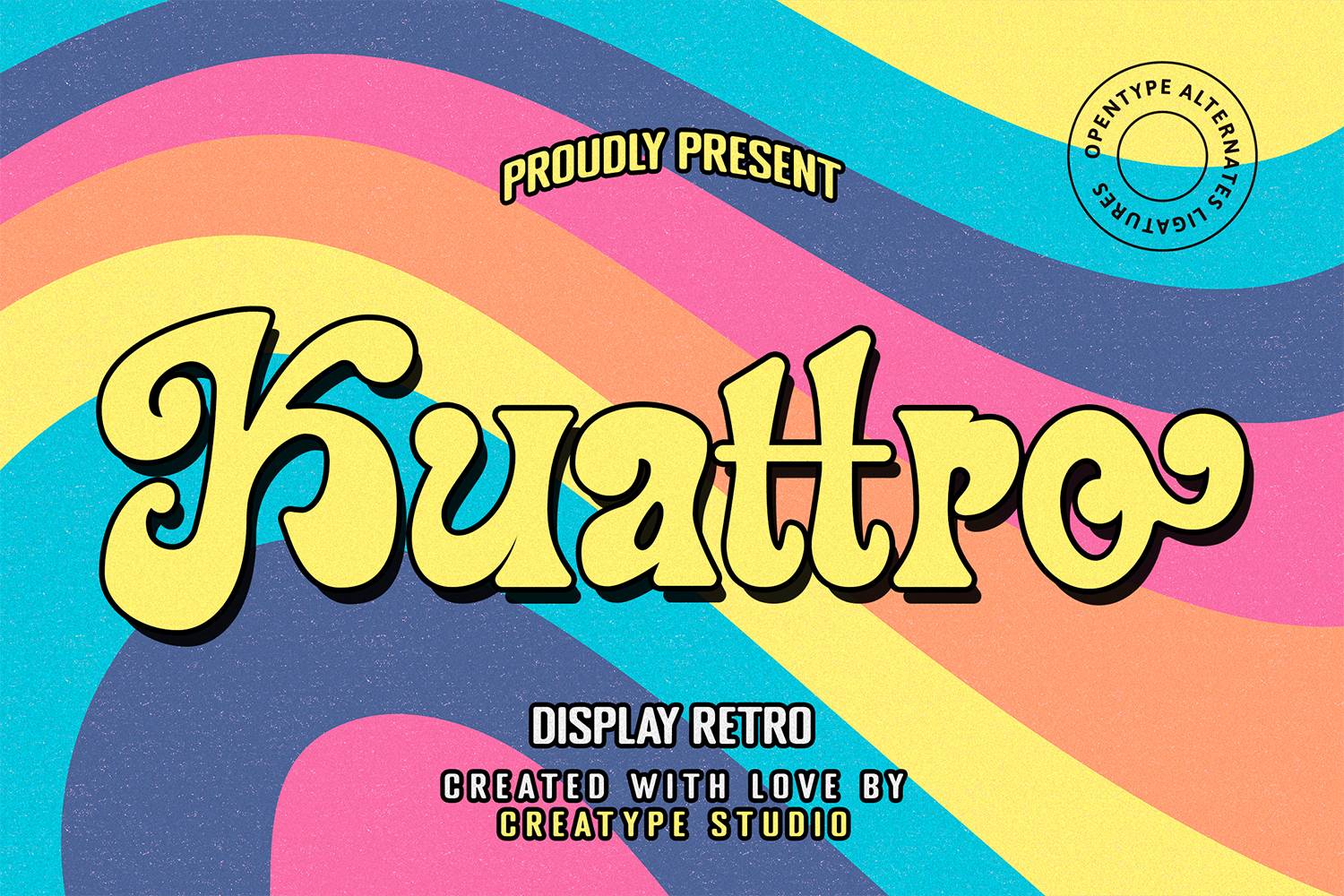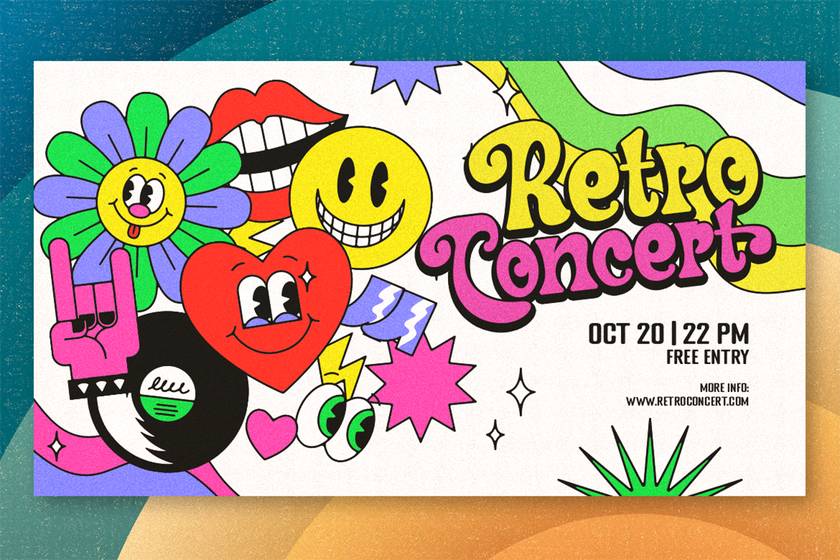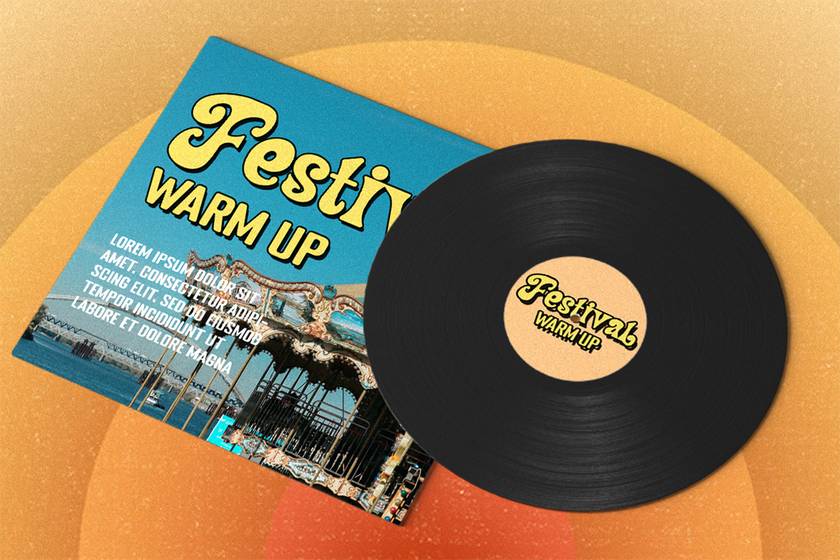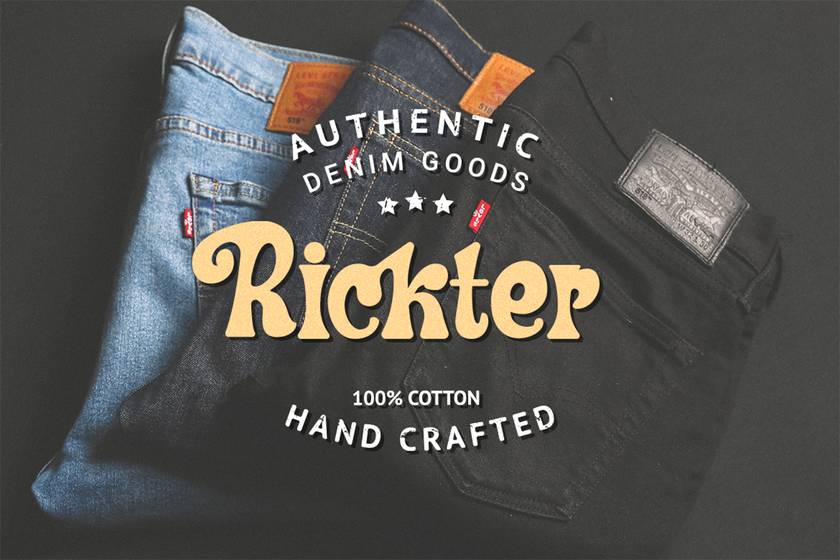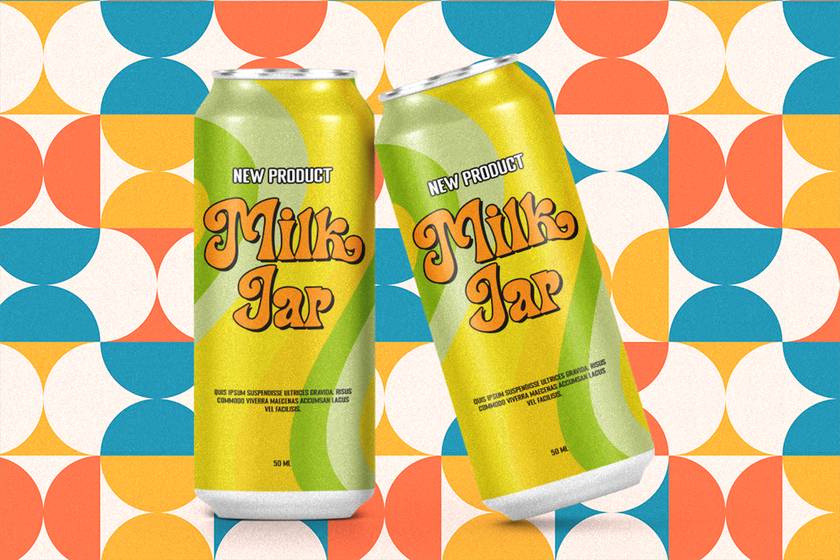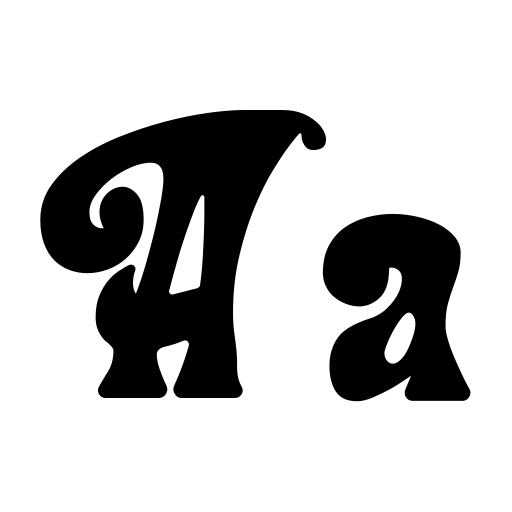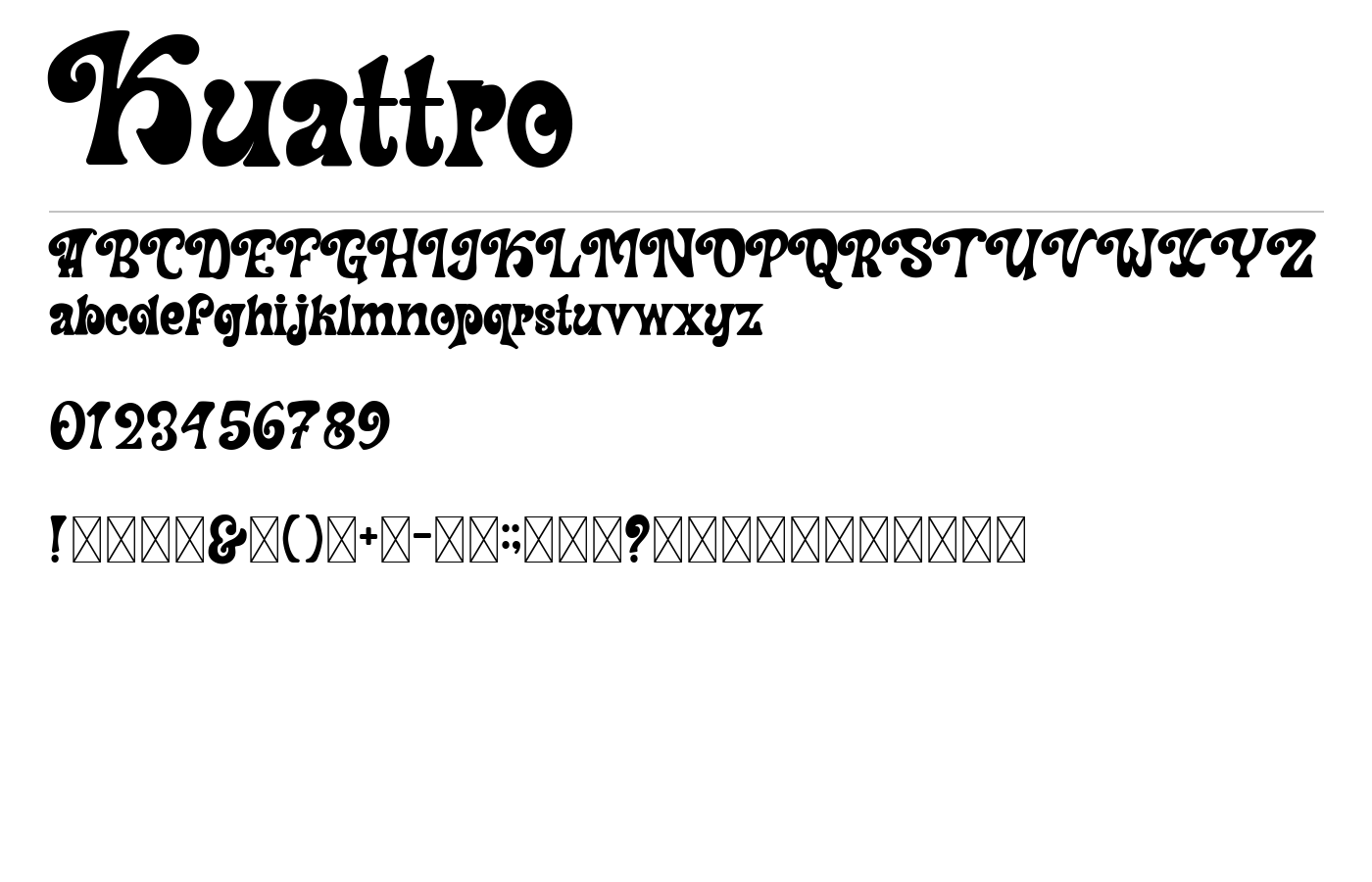
Kuattro is a bold serif font with a playful, decorative flair, featuring thick, contrasting strokes and whimsical curls that give it a lively vintage charm. Its unique letterforms, including curled terminals and pronounced serifs, make it ideal for eye-catching headlines, posters, and branding that seek a fun yet distinctive personality. This font works best in creative projects where a bold, spirited look is needed to capture attention and convey a sense of joyful energy.
Kuattro Font
About Kuattro Font
| Font family | Kuattro Font |
| Release date | 1987-11-21 |